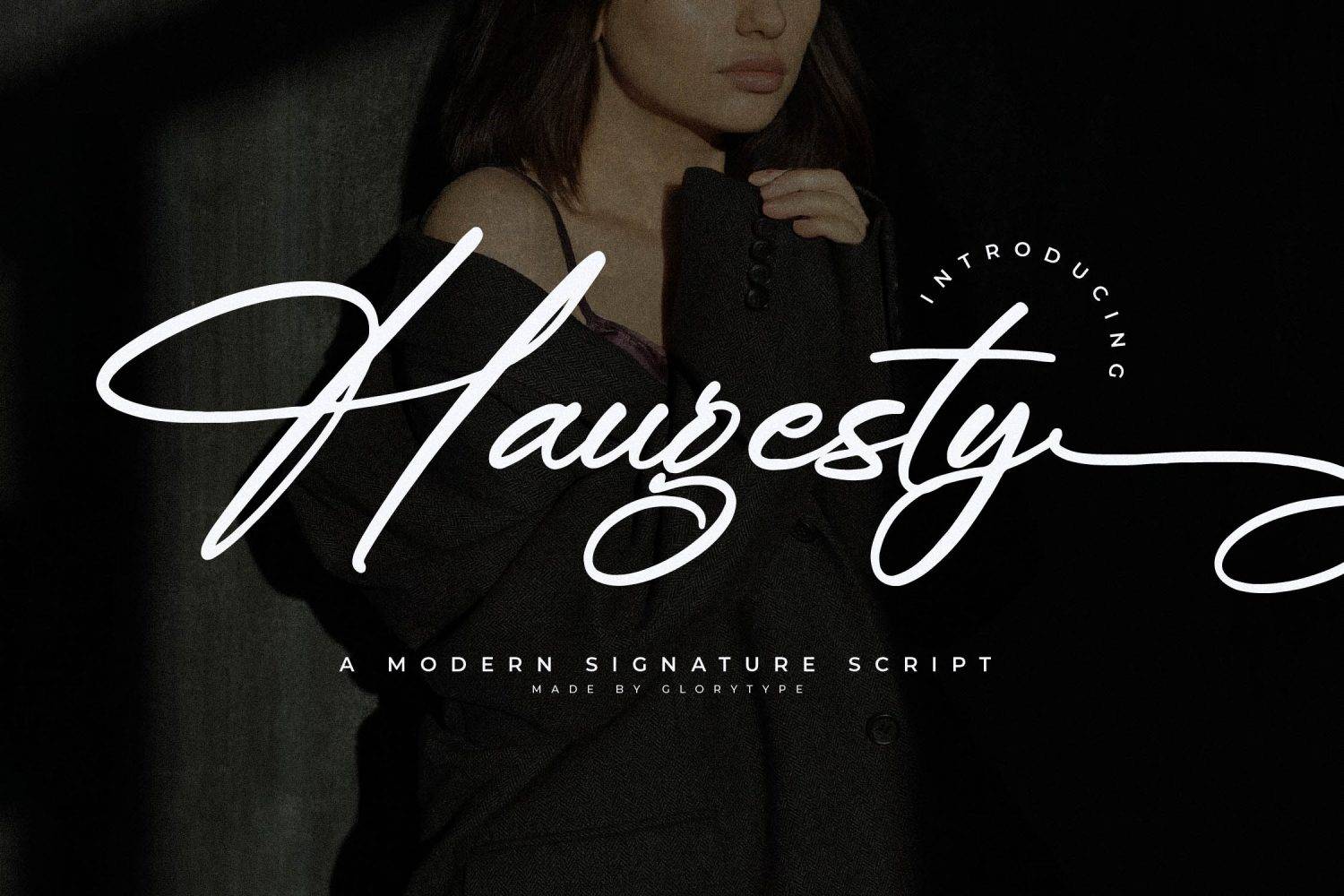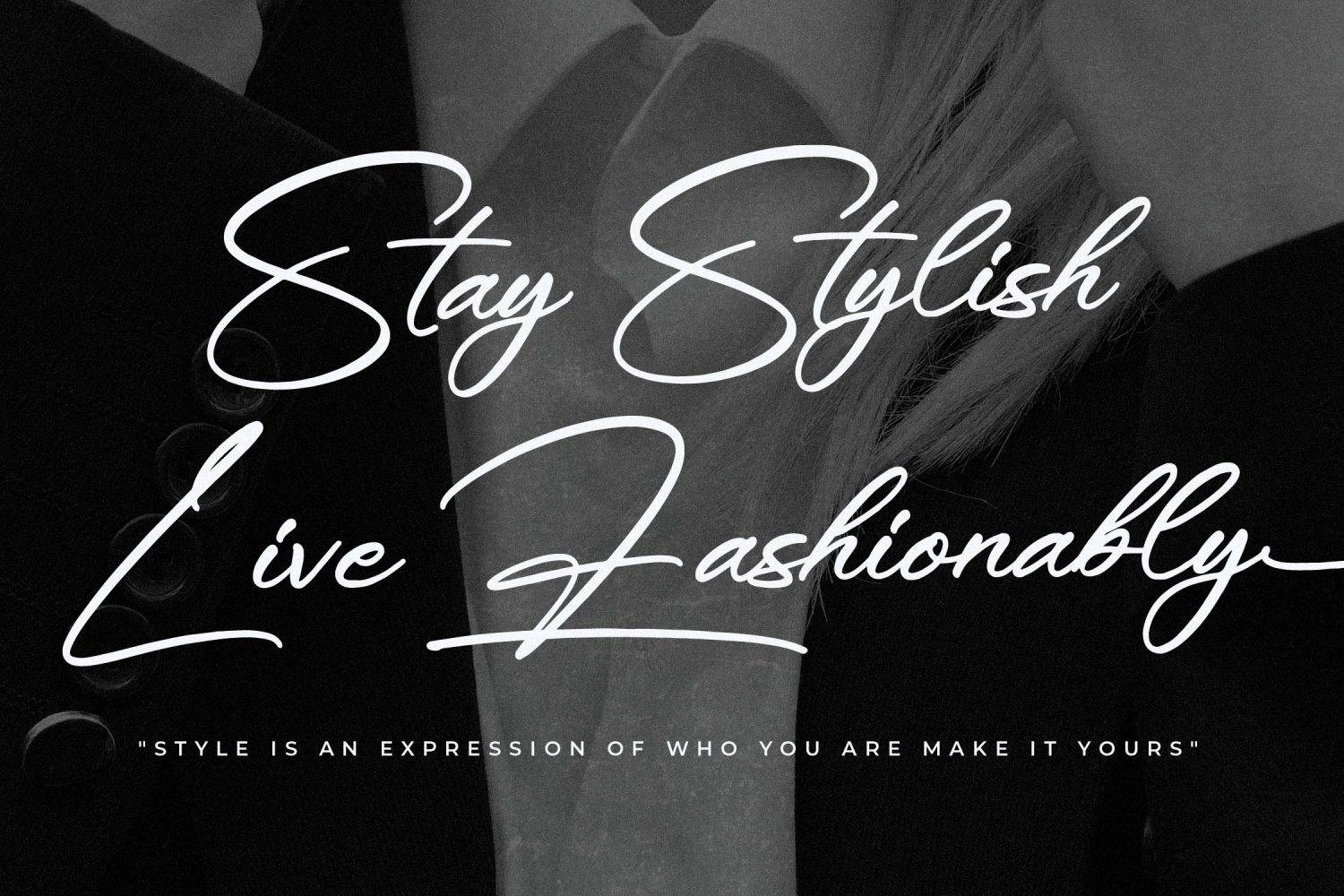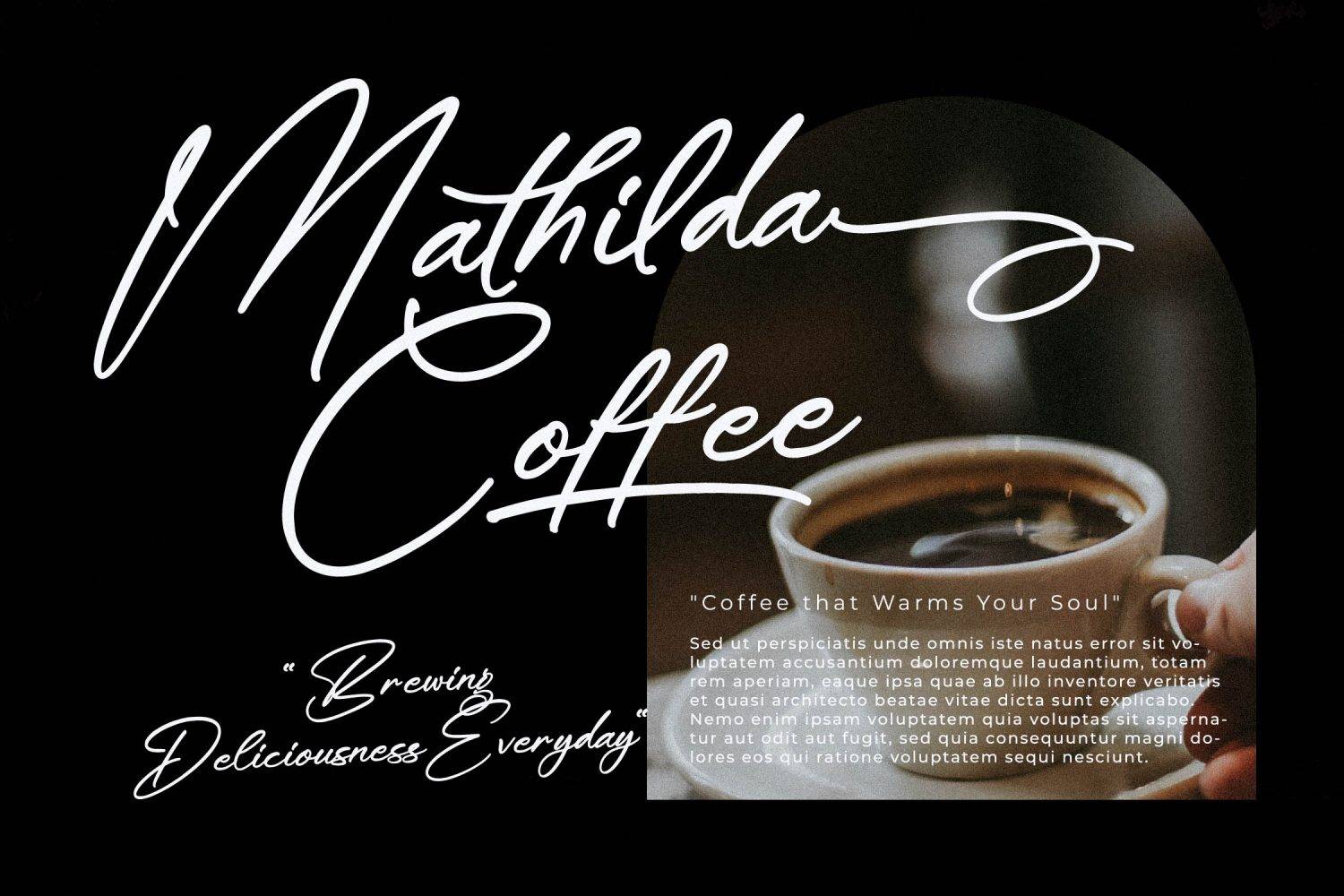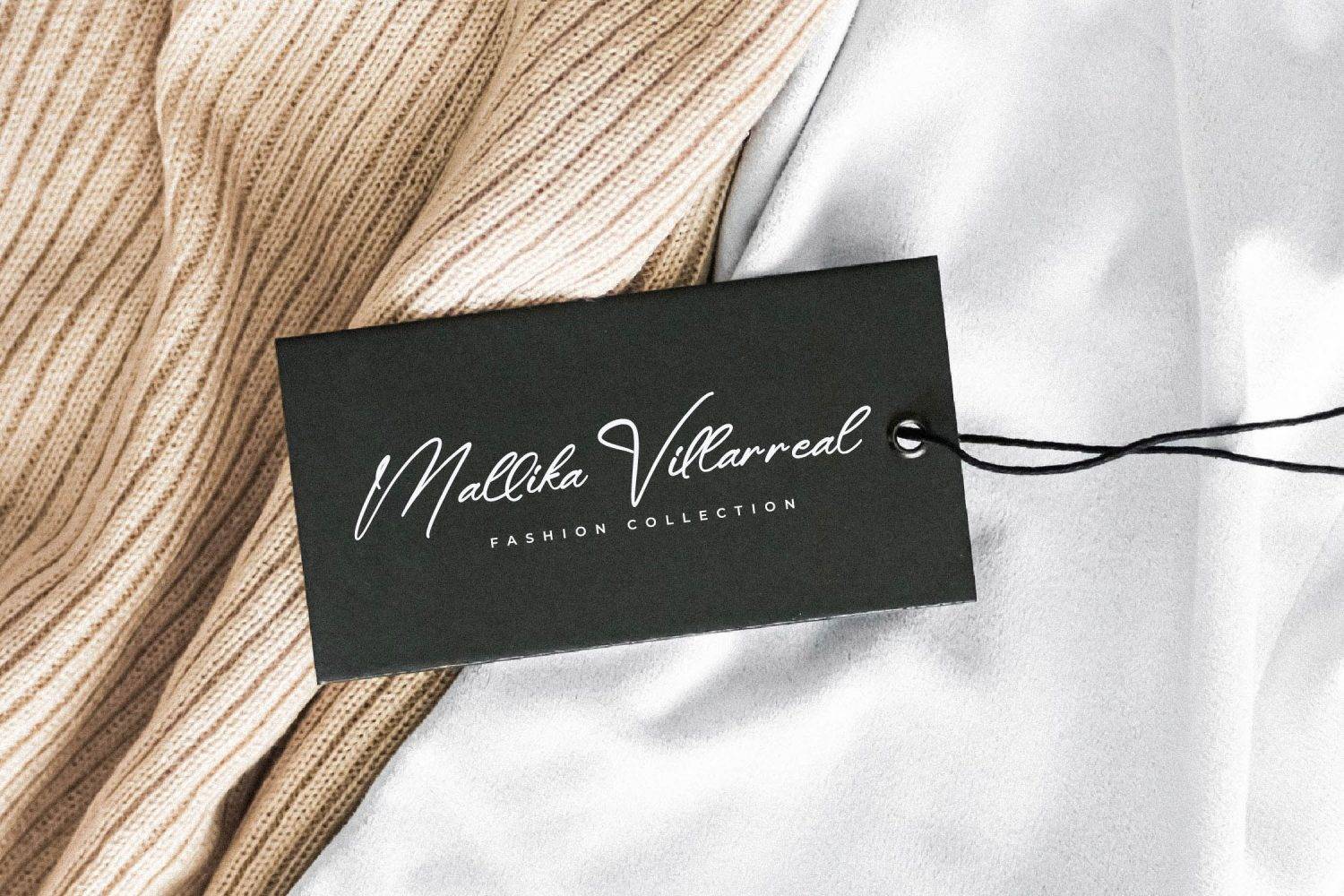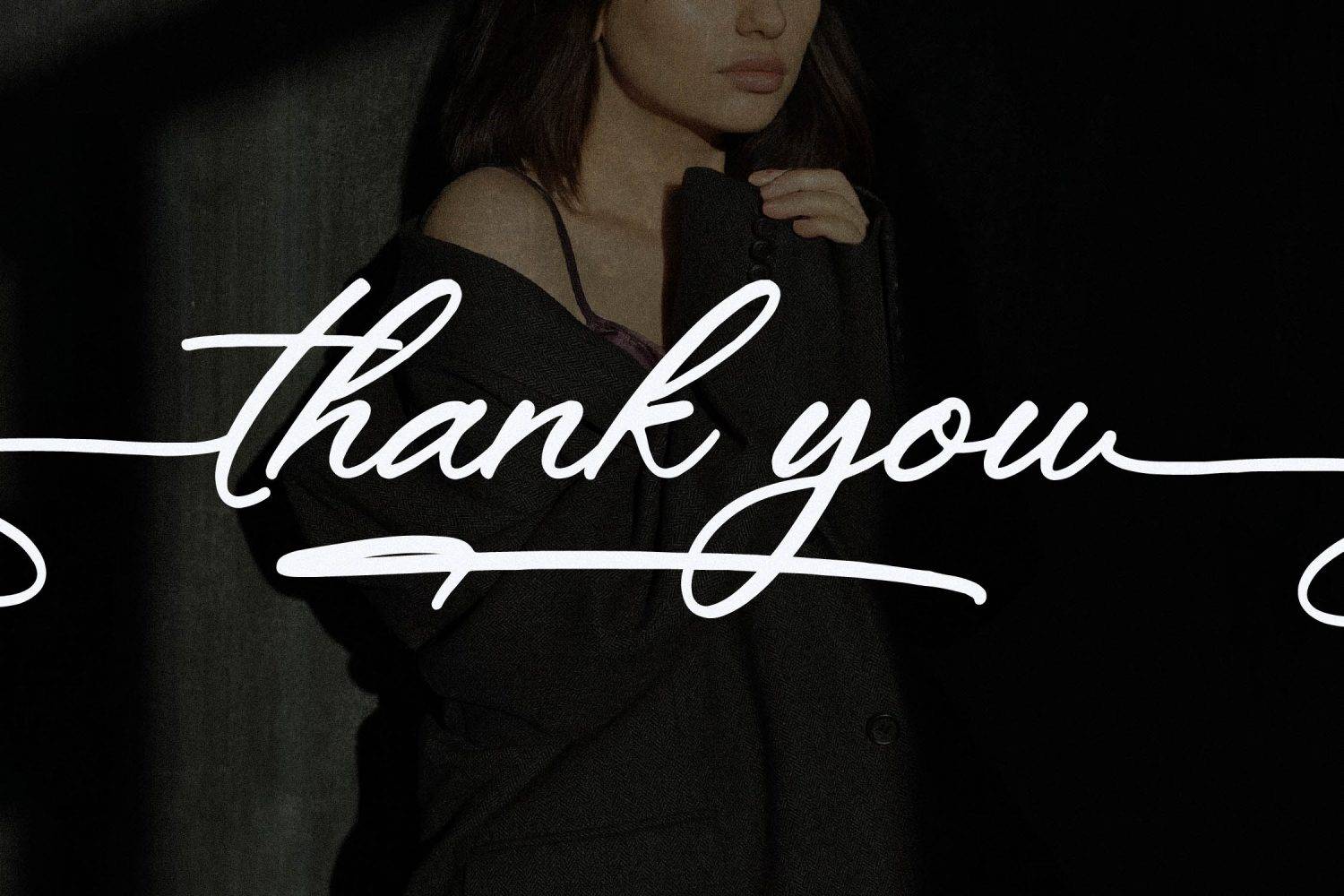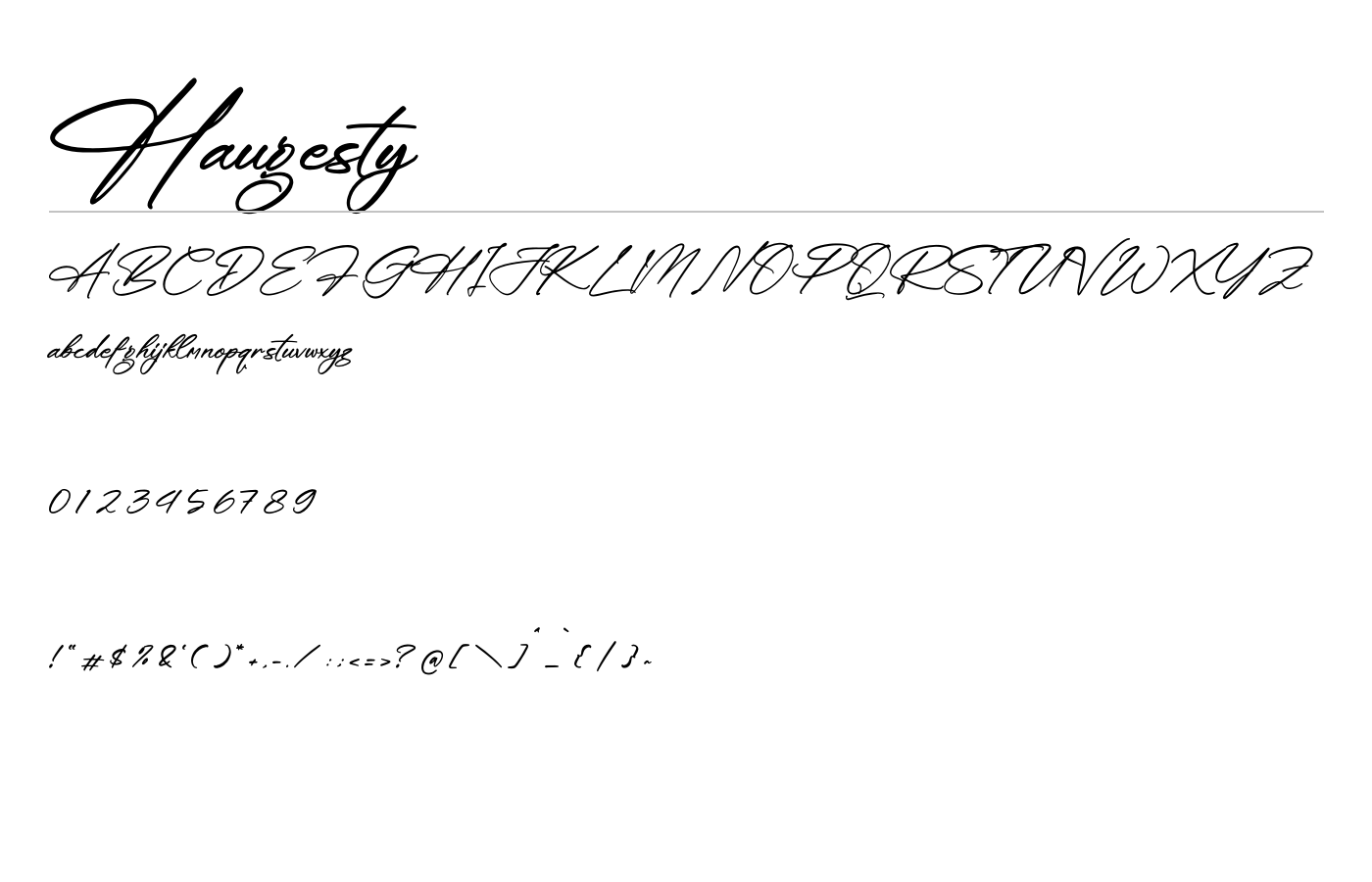
Haugesty is a graceful script font that combines elegance with a natural handwritten feel. Its delicate strokes and fluid letterforms make it perfect for stylish invitations, branding, and editorial designs that seek a sophisticated, personal touch. This font works beautifully for projects that demand a refined, artistic look without sacrificing readability.
Haugesty Font
About Haugesty Font